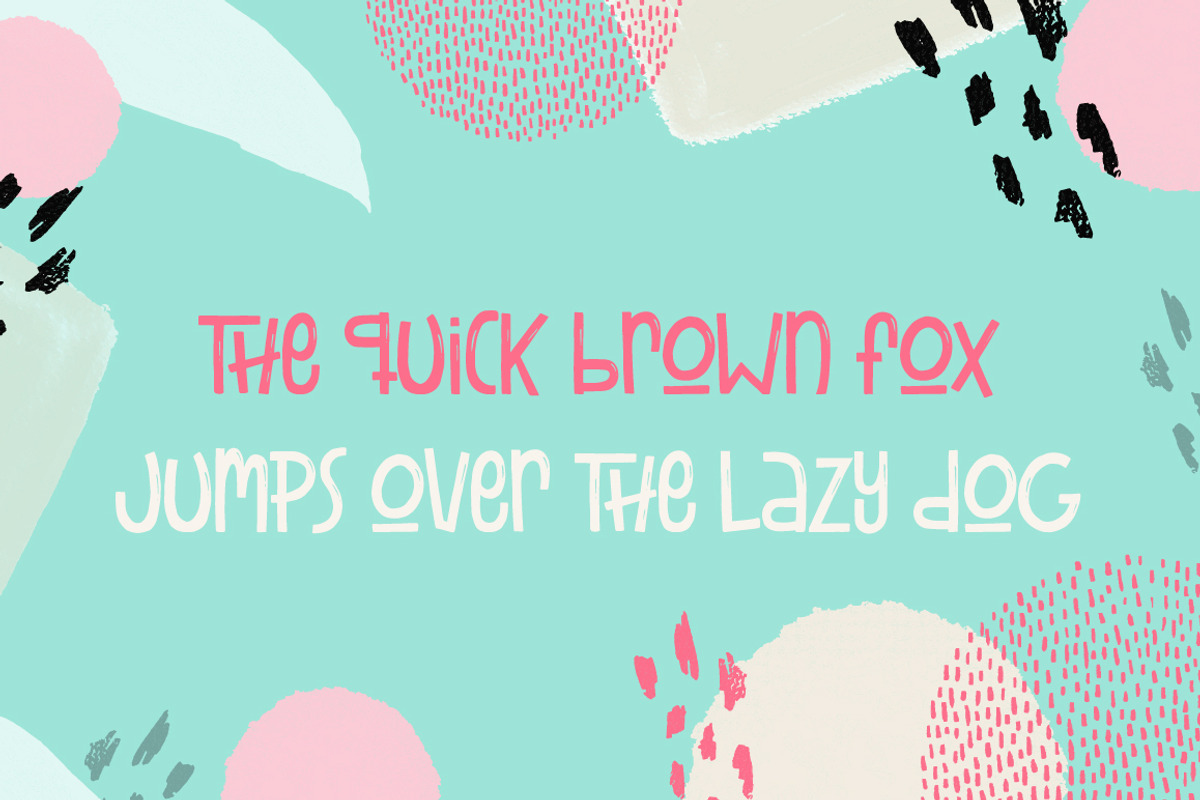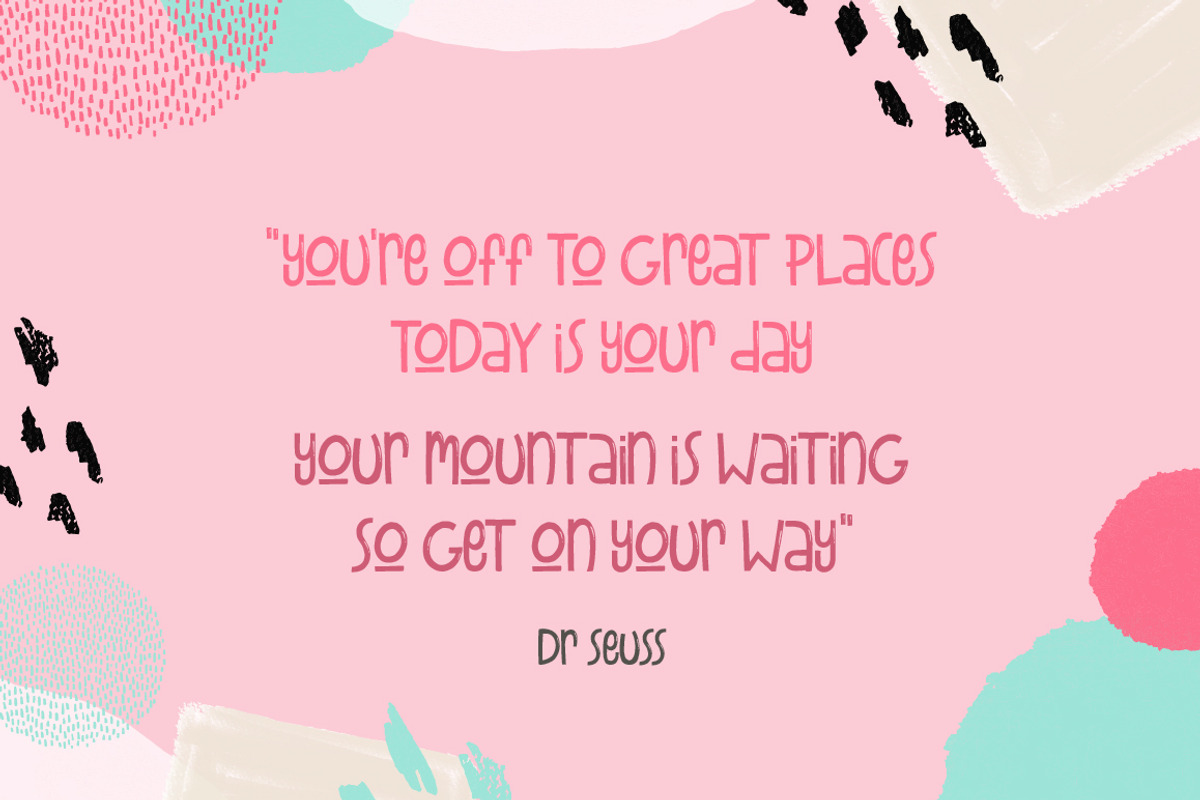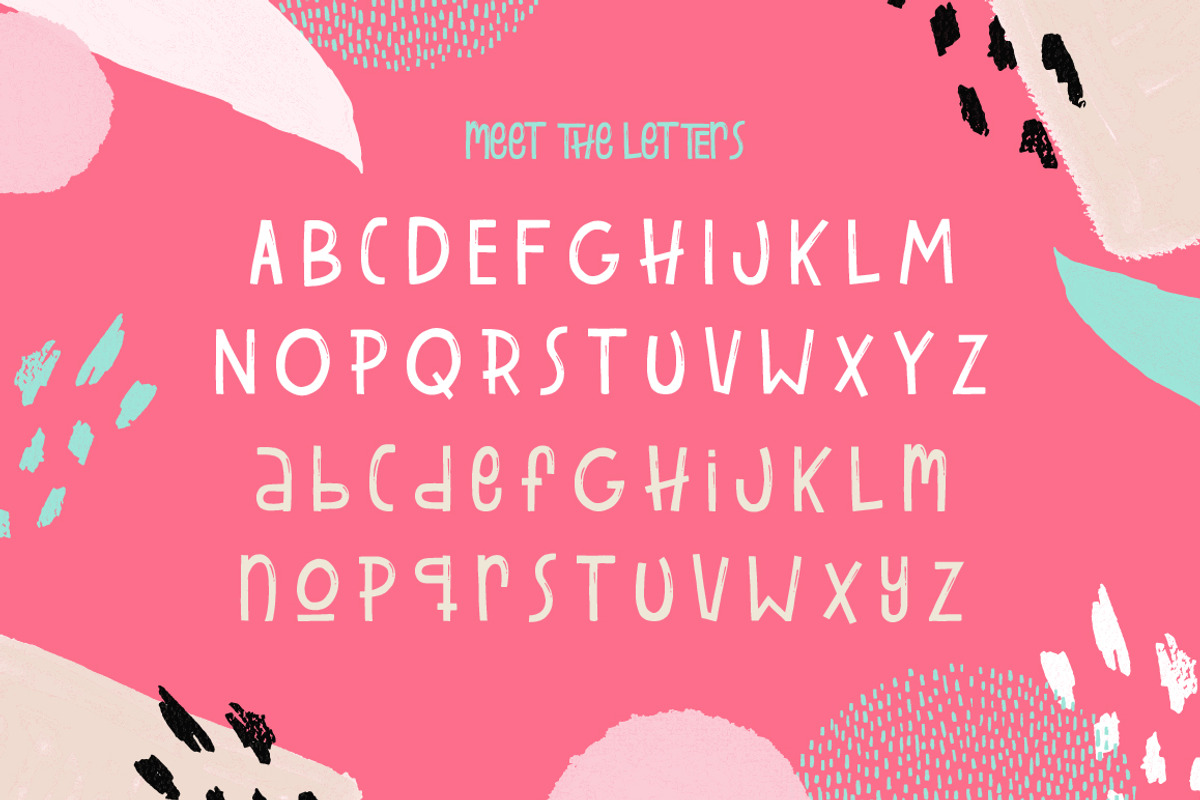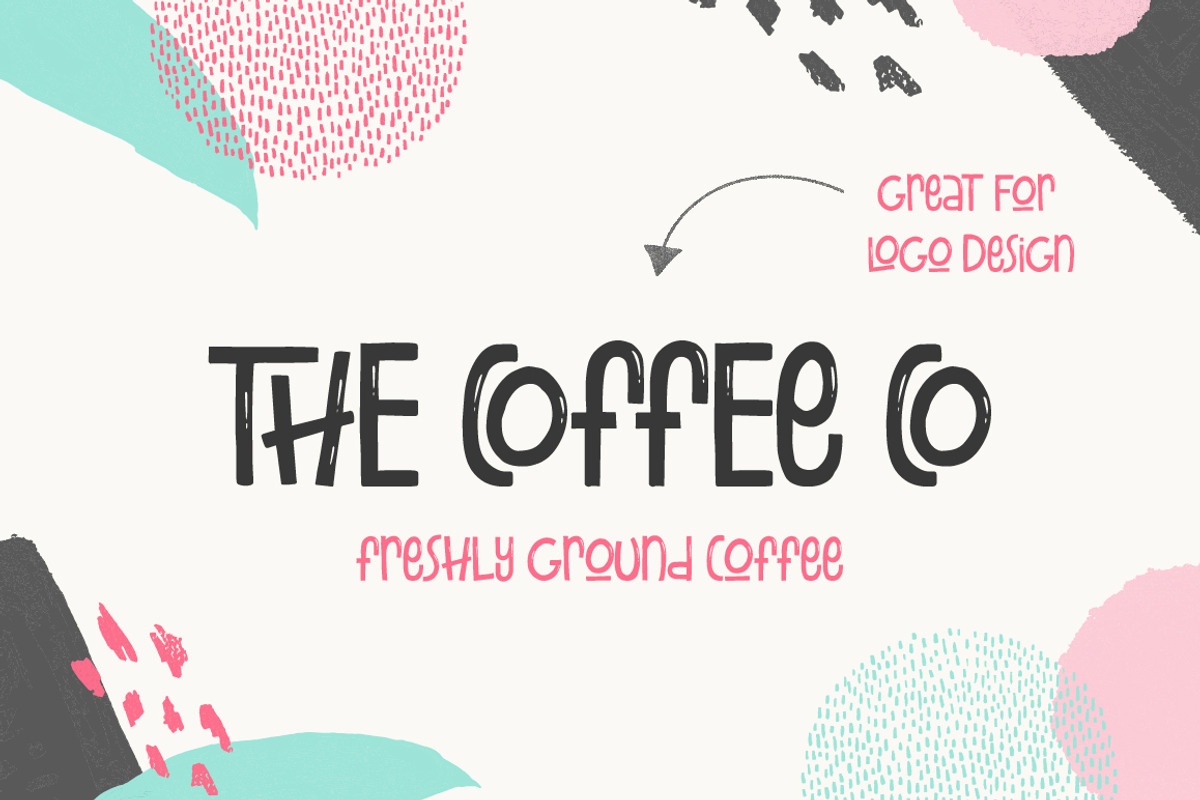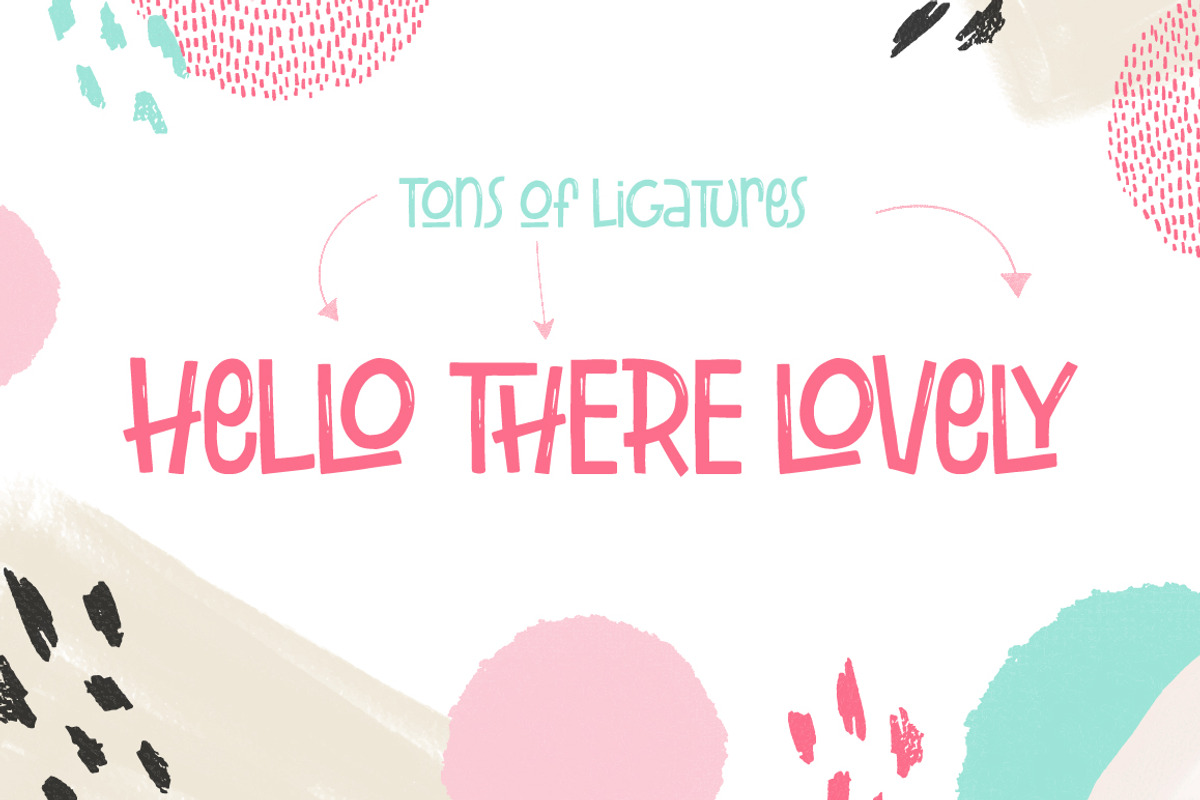
Timberwood Font
Timberwood is a brand new, quirky font from Salt & Pepper Designs! A feel-good typeface that helps bring a little light and laughter to your work with its unique characters and child-like styling! WE know you'll love it as much as we do
- A feel-good typeface that helps bring a little light and laughter to your work with its unique characters and child-like styling!